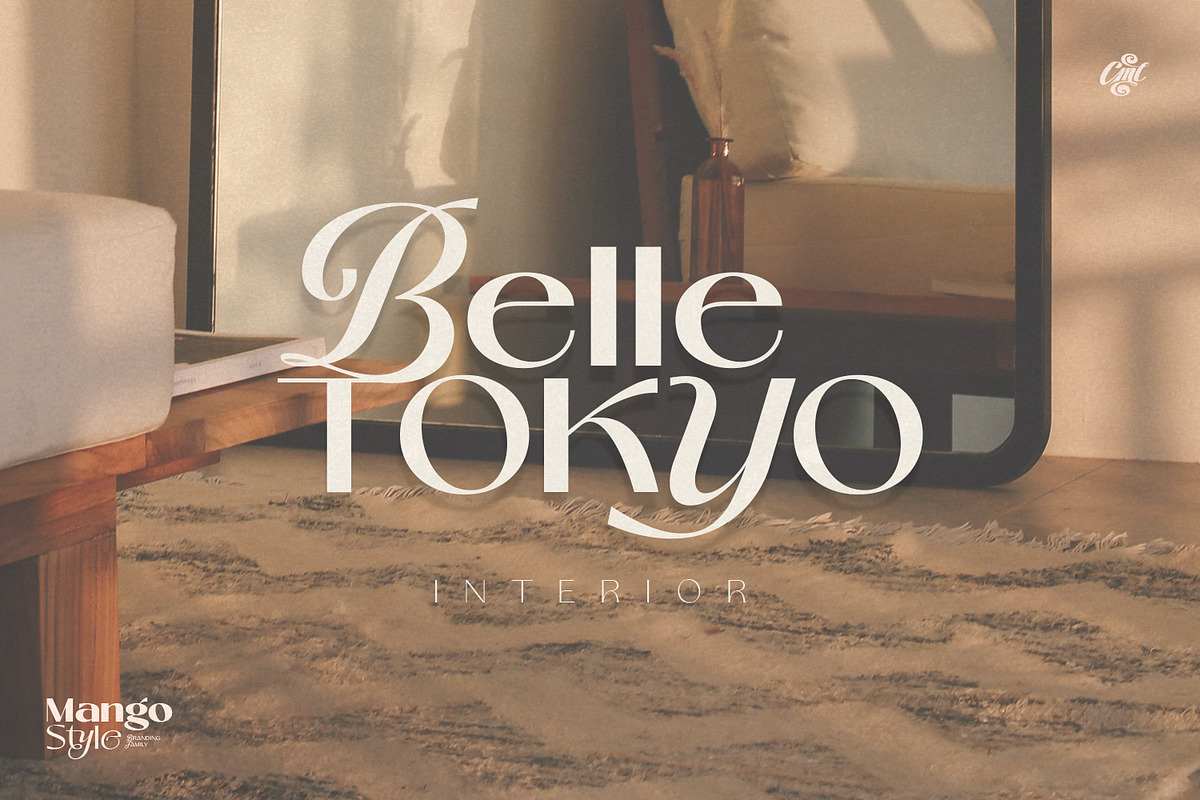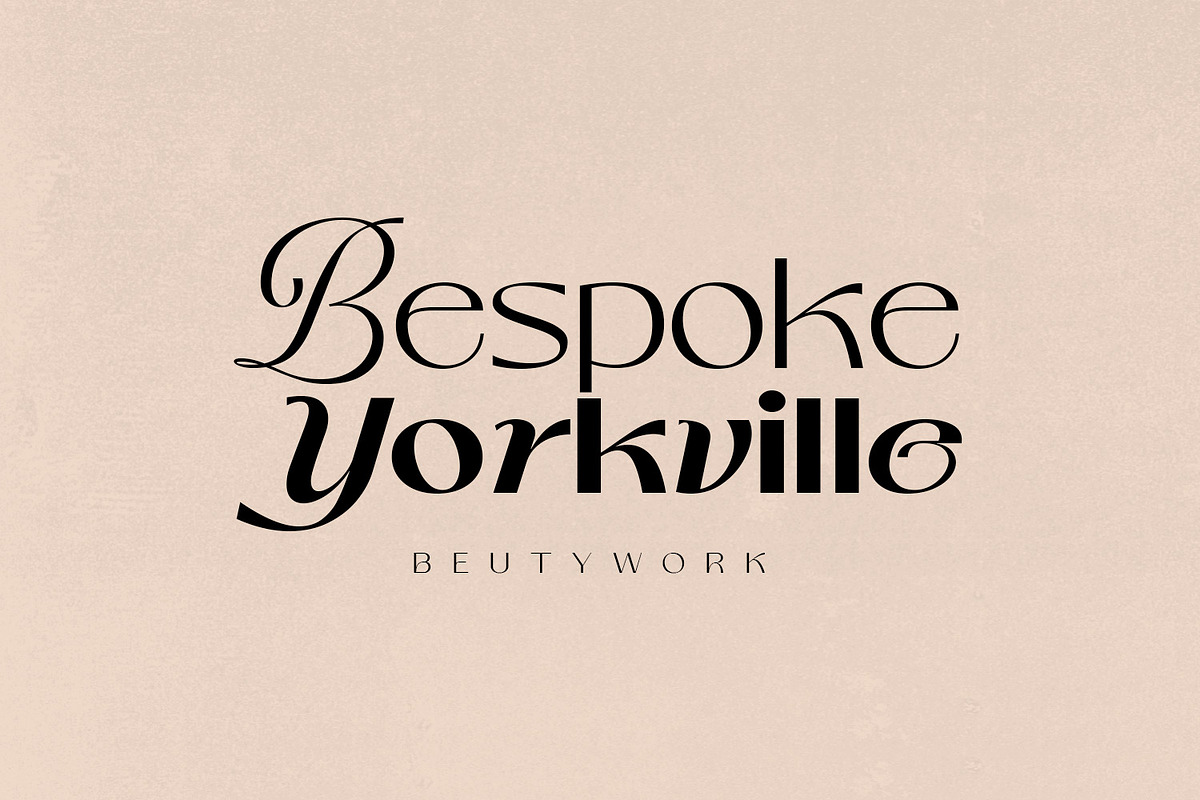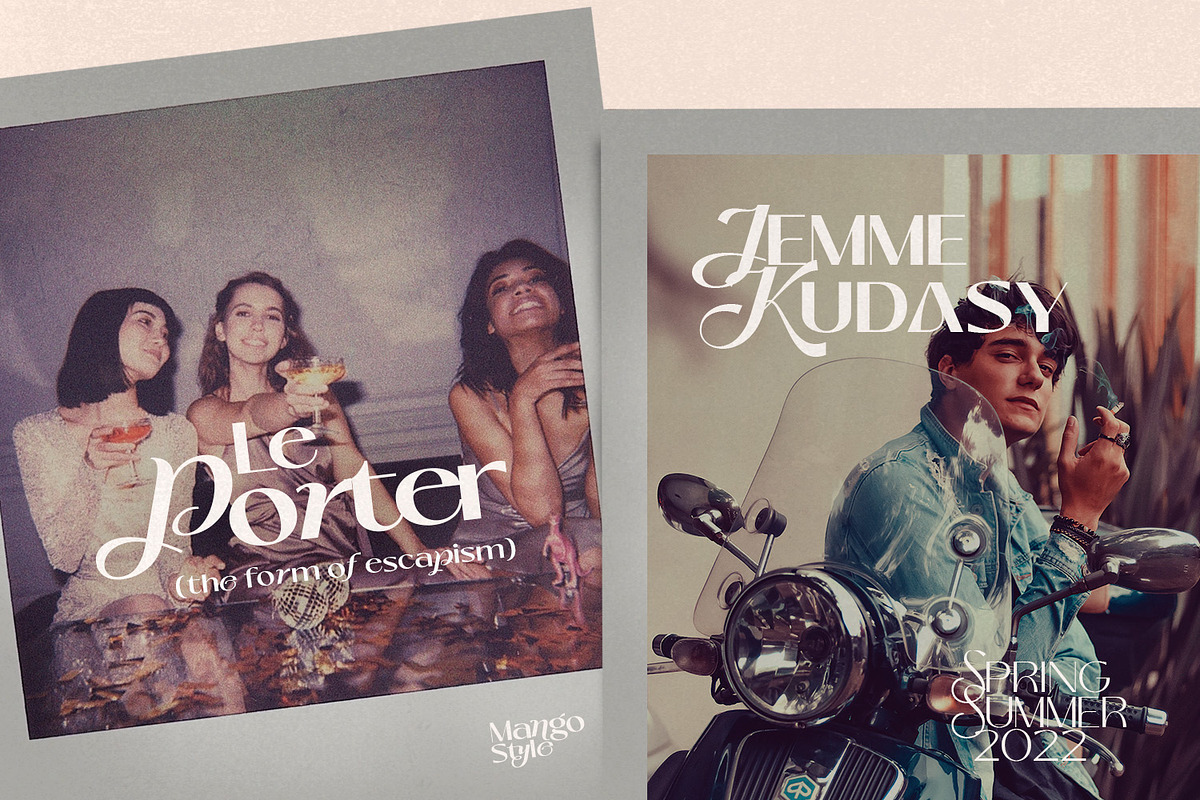
Mango Style is a modern branding font with stylish script alternates. this font is ideal for crafting logos for fashion, apparel brands, and luxury projects. Insert stylish alternates between words for a more fashionable look. This fonts comes in 9 different weights, from thin to heavy, as well as variable format. Support Languages: Western Europe, Central/Eastern Europe, Baltic, Turkish, Romania.